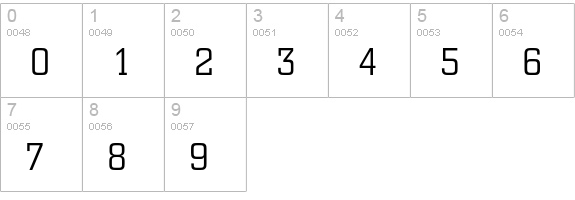
Berthold City Light is a refined, elegant variant in the Berthold typeface family \xE2\x80\x94 well suited to elegant body text, refined sub-headings, and luxury branding.
Berthold City Light is a sleek and modern sans-serif font that exudes sophistication and elegance. With its clean lines and subtle curves, this typeface is perfect for creating a polished and professional look in your design projects. The light weight of the font adds a touch of delicacy and refinement, making it ideal for titles, headlines, and other display purposes. What makes Berthold City Light even more appealing is that it is available for free download at FontsMarket.com. This means that you can easily access this high-quality font without any cost, allowing you to elevate your designs without breaking the bank. Whether you're working on branding materials, advertisements, or web designs, Berthold City Light is sure to make a stylish statement. Download it today and see the difference it can make in your projects.